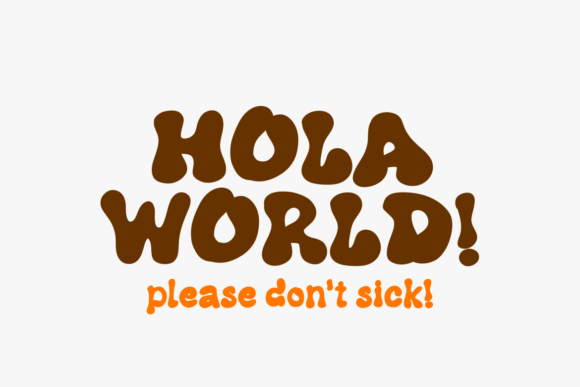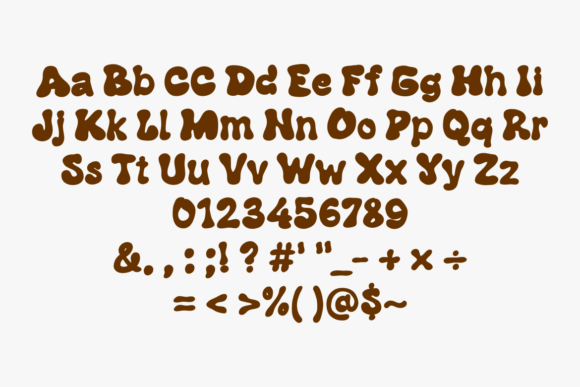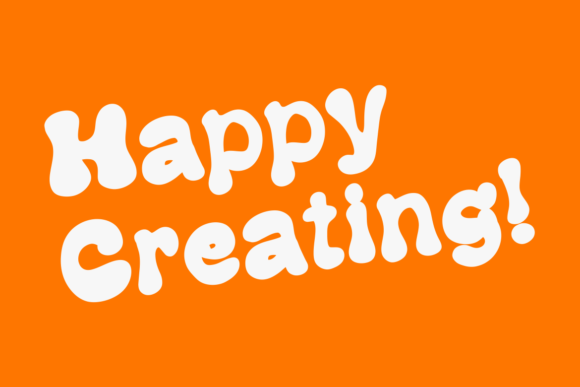
Gremos Font: The Playful Groovy Display Font for Your Creative Projects
Are you tired of using the same old fonts for your design projects? Look no further than Gremos Font, a playful groovy display font that’s sure to add a touch of whimsy to your work. With its casual charm and down-to-earth vibe, Gremos is the perfect choice for designers and crafters looking to add some personality to their projects.
The Characteristics of Gremos Font
Gremos Font is a versatile display font that’s designed to be both readable and eye-catching. Its unique blend of playfulness and sophistication makes it perfect for a wide range of applications, from bold headlines to creative branding projects. Here are just a few of the key characteristics that make Gremos Font stand out:
• Playful and Groovy: Gremos Font has a fun and carefree vibe that’s perfect for designers who want to add a touch of personality to their work.
• Casual Charm: With its relaxed and informal feel, Gremos Font is perfect for projects that need to feel approachable and down-to-earth.
• Readable: Despite its playful nature, Gremos Font is highly readable, even at smaller sizes.
• Versatile: Gremos Font can be used in a wide range of contexts, from bold headlines to creative branding projects.
Using Gremos Font in Your Design Projects
One of the best things about Gremos Font is its versatility. Whether you’re working on a busy background or using it as a standalone headline, Gremos Font is sure to look outstanding. Here are just a few ideas for using Gremos Font in your design projects:
• Headlines and Titles: Use Gremos Font to add a touch of personality to your headlines and titles.
• Branding and Logo Design: Gremos Font is perfect for creating unique and memorable brand identities.
• Posters and Flyers: Add a playful touch to your posters and flyers with Gremos Font.
• Social Media Graphics: Use Gremos Font to create eye-catching social media graphics that stand out from the crowd.
Why Designers and Crafters Love Gremos Font
So why do designers and crafters love Gremos Font? Here are just a few reasons:
• Unique and Creative: Gremos Font offers a unique and creative way to add personality to your design projects.
• Easy to Read: Despite its playful nature, Gremos Font is highly readable, even at smaller sizes.
• Versatile: Gremos Font can be used in a wide range of contexts, from bold headlines to creative branding projects.
• Fun and Engaging: Gremos Font is perfect for designers who want to add a touch of whimsy to their work.
In conclusion, Gremos Font is a playful groovy display font that’s perfect for designers and crafters looking to add some personality to their projects. With its casual charm, readability, and versatility, Gremos Font is sure to look outstanding in any context. Whether you’re working on a bold headline or a creative branding project, Gremos Font is the perfect choice. So why not give it a try and see the difference it can make in your design work?
• Playful groovy display font
• Casual charm and down-to-earth vibe
• Readable and versatile
• Perfect for bold headlines and creative branding projects